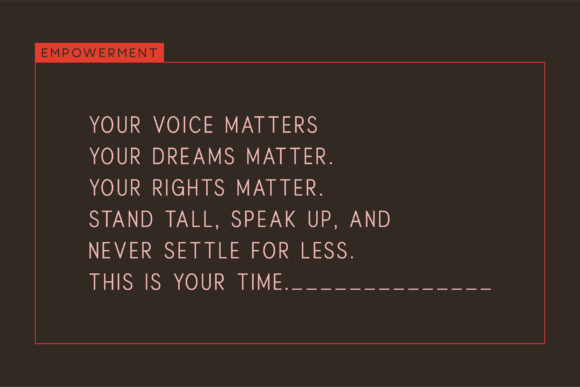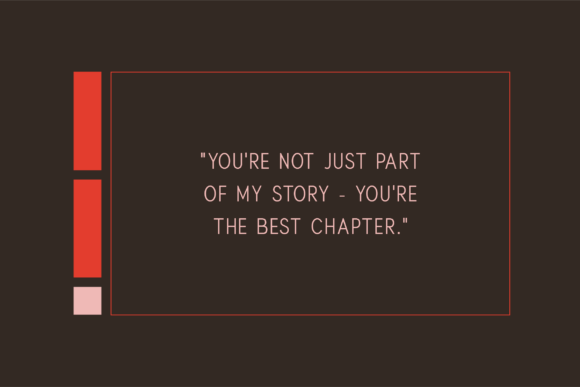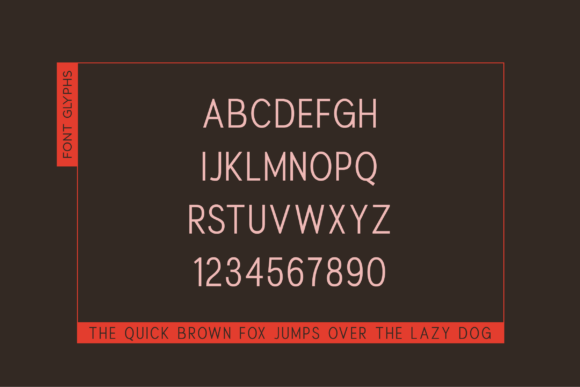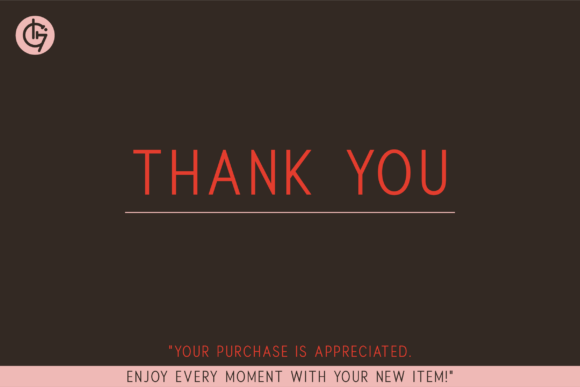
Introduction to Festorica Font
Meet Festorica – The Sans Serif That Means Business (and Fun) Say hello to Festorica , the bold, all-caps sans serif that’s basically the Beyoncé of fonts — clean, confident, and impossible to ignore.
With its sleek lines and “I-woke-up-like-this” minimalist style, Festorica brings authority and impact to any project Logo.
Key Features of Festorica Font
Why Choose Festorica Font?
Festorica Font offers exceptional quality and versatility, making it a valuable addition to your design toolkit. Whether you’re creating for personal projects or commercial use, Festorica Font delivers professional results.